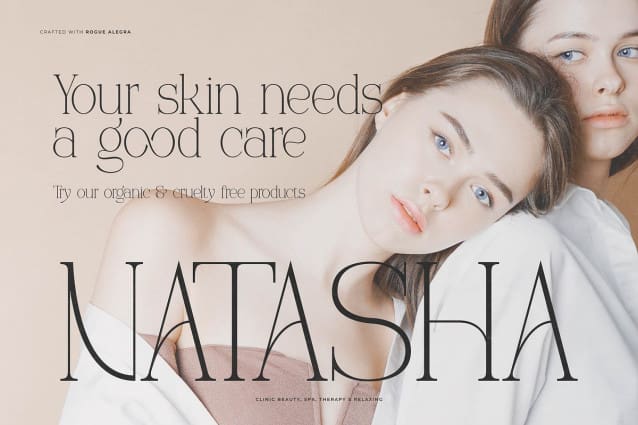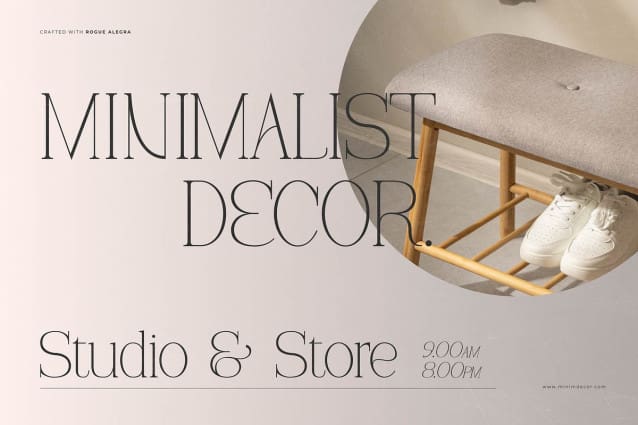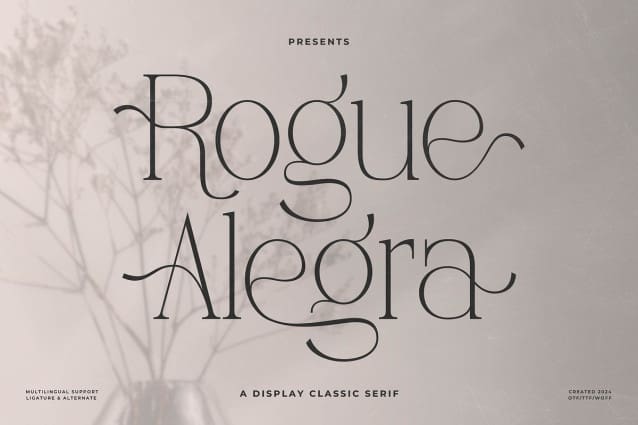
Rogue Alegra Font
Rogue Alegra Font | Display Classic Serif, from Denustudios, suitable for any projects such as: logos, branding projects, homeware designs, product packaging, mugs, quotes, posters, shopping bags, t-shirts, book covers, name card, invitation cards, greeting cards, label, photography, watermark, special events, and all your other lovely projects that need a Display Classic Serif taste.